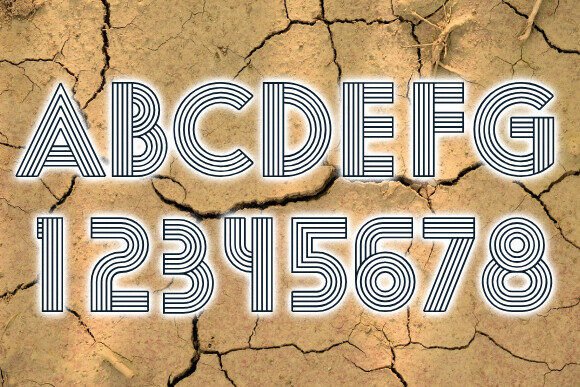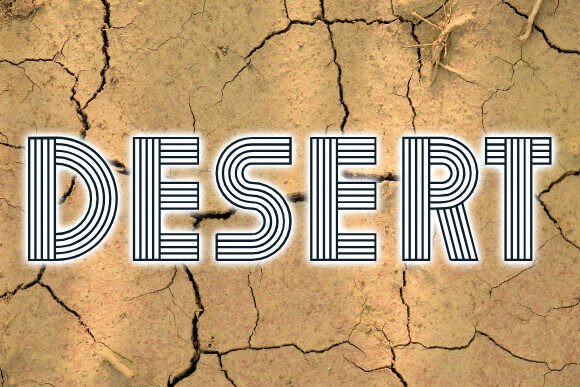
Introducing Egypat Font: The Awesome Decorative Font for Your Designs
Are you a designer or crafter looking for a unique and stylish font to elevate your creations? Look no further than Egypat Font! This amazing decorative font is perfect for adding a touch of elegance and sophistication to any design project. In this article, we’ll explore the features and benefits of Egypat Font, and show you how to make the most of this incredible font in your designs.
What is Egypat Font?
Egypat Font is a beautifully crafted decorative font that is inspired by ancient Egyptian typography. With its intricate and ornate lettering, Egypat Font is sure to add a touch of luxury and glamour to any design. Whether you’re working on a poster, flyer, t-shirt, or any other design project, Egypat Font is the perfect choice.
Key Features of Egypat Font
- Unique and Ornate Lettering: Egypat Font features intricate and ornate lettering that is inspired by ancient Egyptian typography.
- Highly Versatile: Egypat Font can be used on a wide range of design projects, from posters and flyers to t-shirts and more.
- Scalable: Egypat Font is highly scalable, making it perfect for use on a variety of design projects, from small to large.
Benefits of Using Egypat Font
So why choose Egypat Font for your design projects? Here are just a few benefits of using this amazing font:
- Adds Elegance and Sophistication: Egypat Font adds a touch of elegance and sophistication to any design project.
- Helps You Stand Out: With its unique and ornate lettering, Egypat Font helps your designs stand out from the crowd.
- Perfect for Branding and Marketing: Egypat Font is perfect for use in branding and marketing materials, such as logos, business cards, and more.
How to Use Egypat Font in Your Designs
Using Egypat Font in your designs is easy! Here are a few tips to get you started:
- Choose the Right Size: Egypat Font is highly scalable, so choose a size that works best for your design.
- Experiment with Colors: Egypat Font looks great in a variety of colors, so don’t be afraid to experiment and find the perfect color for your design.
- Pair with Other Fonts: Egypat Font pairs well with other fonts, so try pairing it with a simpler font to create a striking contrast.
Design Ideas Using Egypat Font
- Posters and Flyers: Use Egypat Font to create eye-catching posters and flyers for events, promotions, and more.
- T-Shirts and Apparel: Egypat Font looks great on t-shirts and other apparel, making it perfect for fashion designers and crafters.
- Logos and Branding: Use Egypat Font to create unique and memorable logos and branding materials.